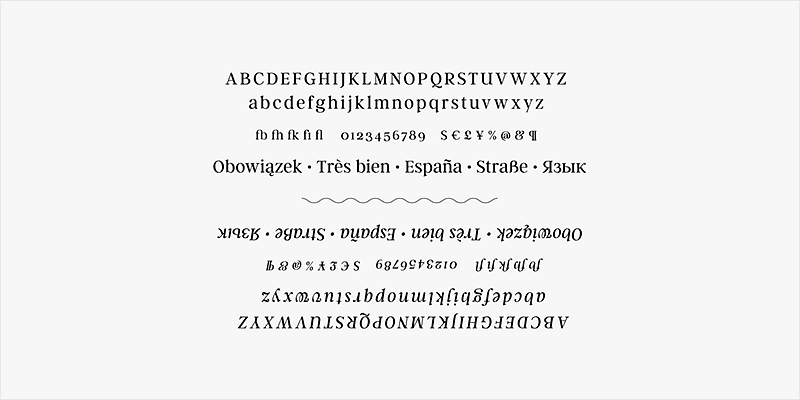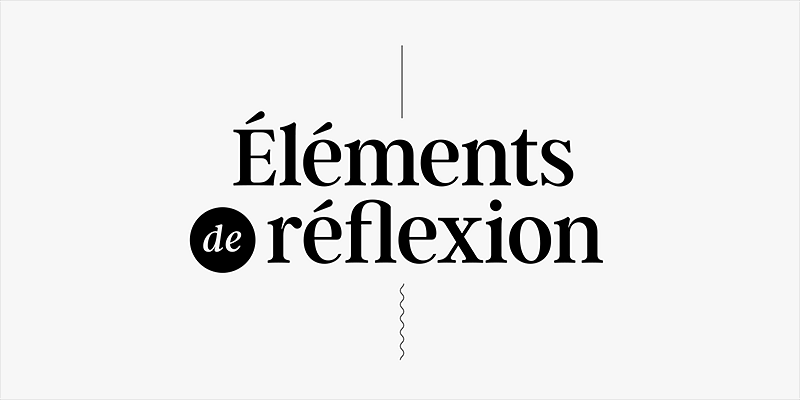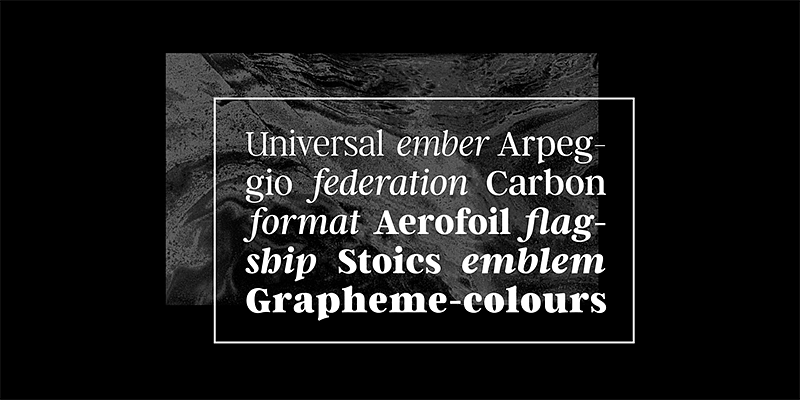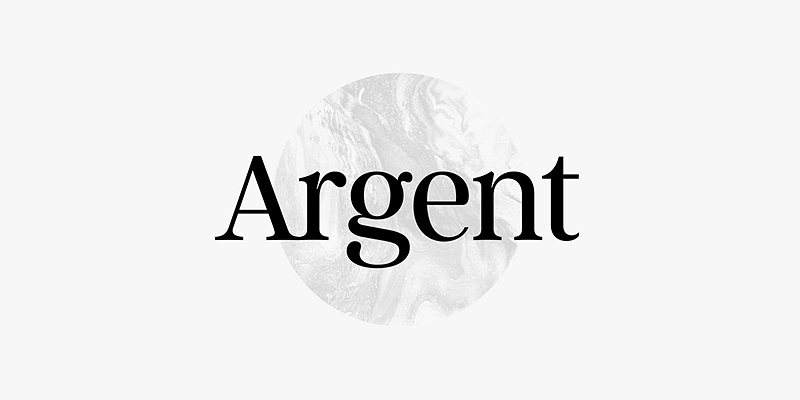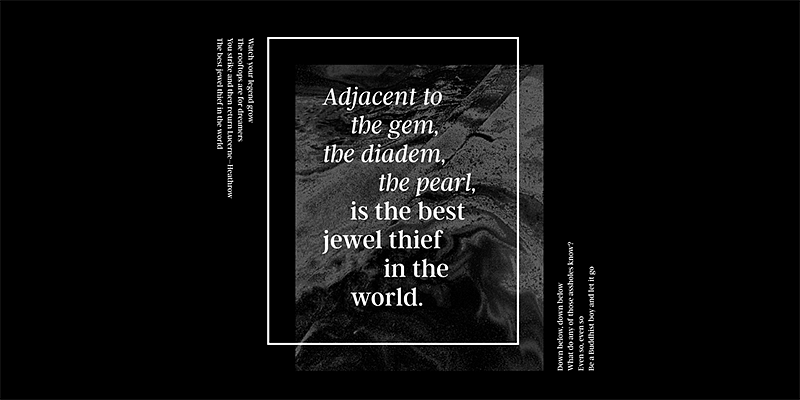
Argent CF is dashing and expressive, with a pronounced x-height and evocative, flowing letterforms. Featuring charming italics, a host of OpenType features, wide language support, and lots of character, Argent excels at headings, titles, and logos. Argent CF is a serif font family. This typeface has thirteen styles and was published by Connary Fagen Type Design.